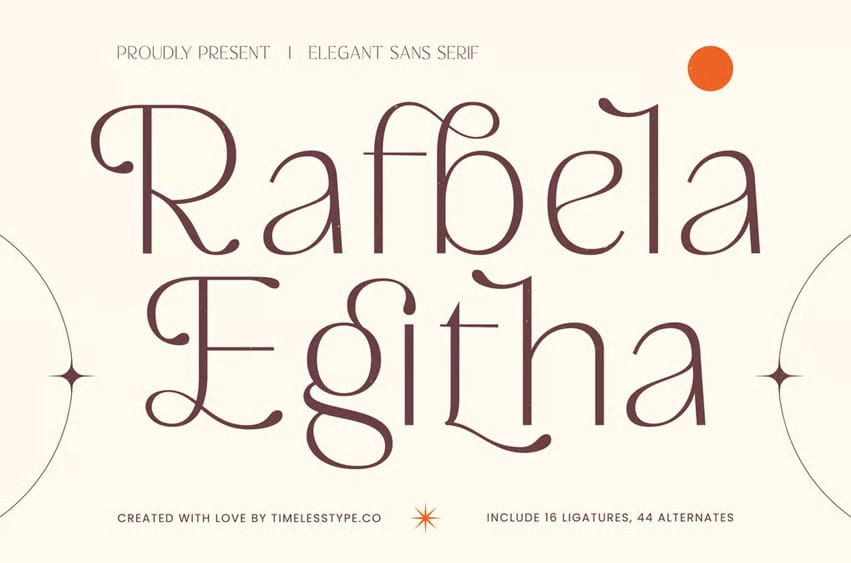
Rafbela Egitha Font is an elegant sans serif infused with delicate curves, refined contrast, and ornamental flair. Designed for premium branding, editorial layouts, perfume packaging, boutique logos, and wedding-inspired visuals, this typeface blends modern minimalism with classical artistic strokes.
Featuring 16 ligatures and 44 sophisticated alternates, Rafbela Egitha gives you full stylistic expression — from graceful swashes to refined terminal flourishes. Soft, airy spacing and its unique letterforms make every headline feel luxurious and effortlessly stylish.